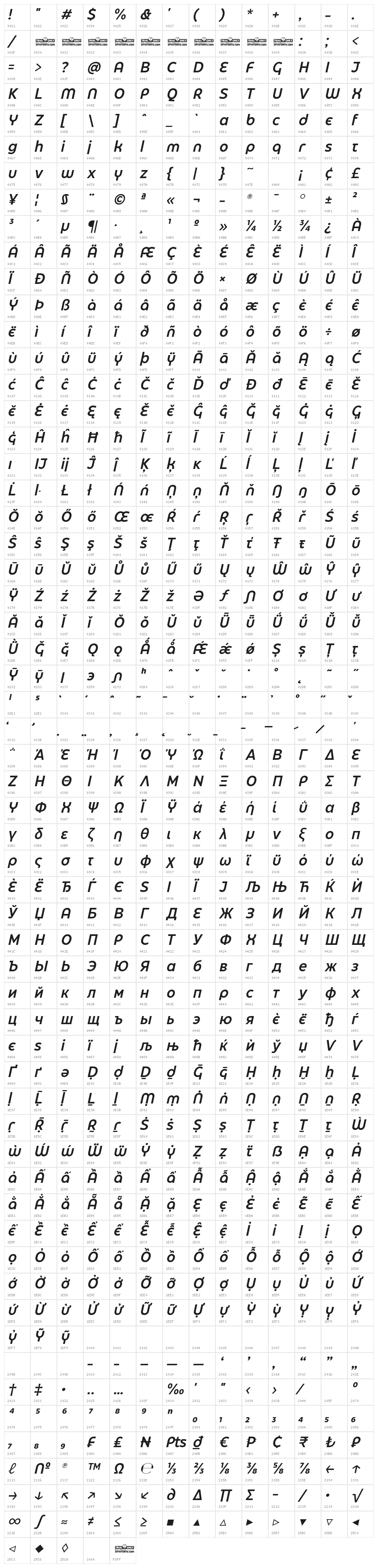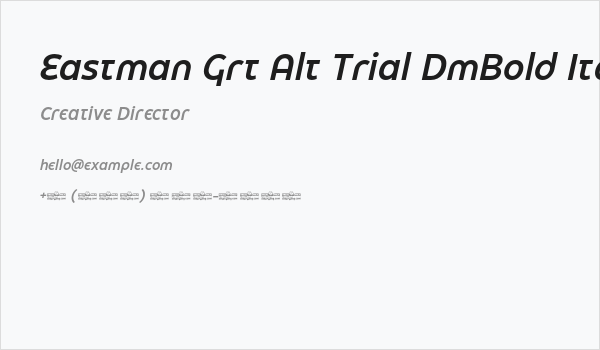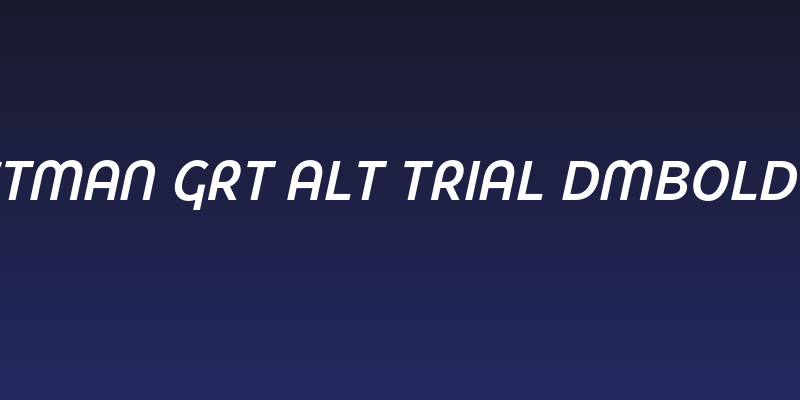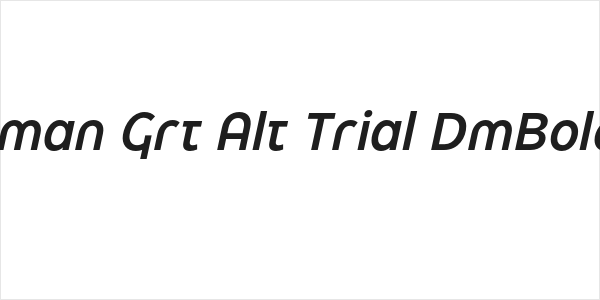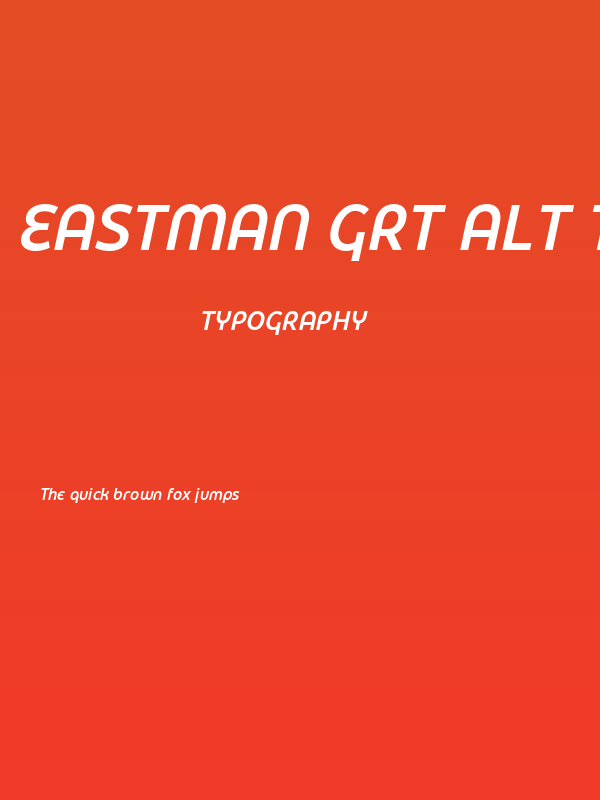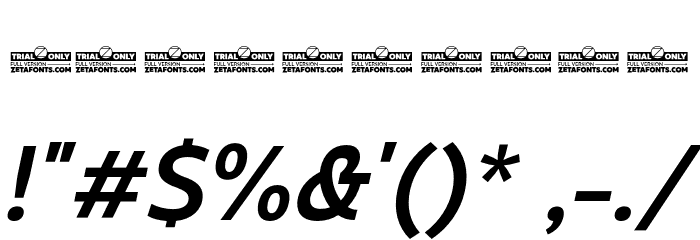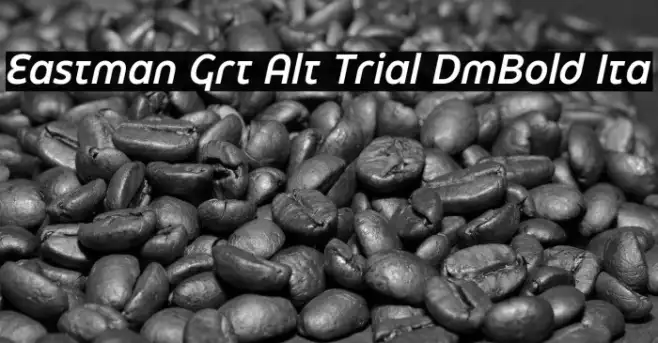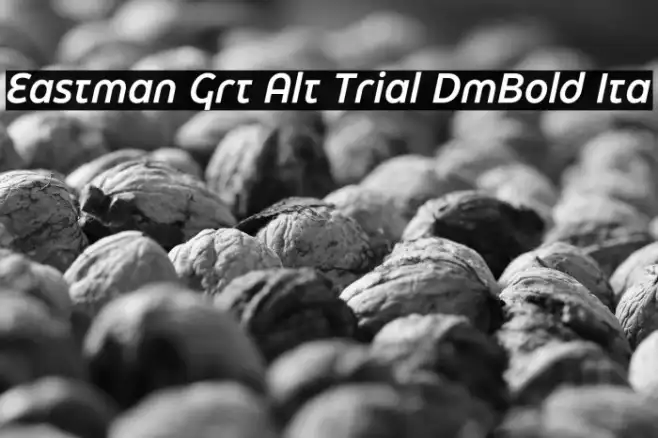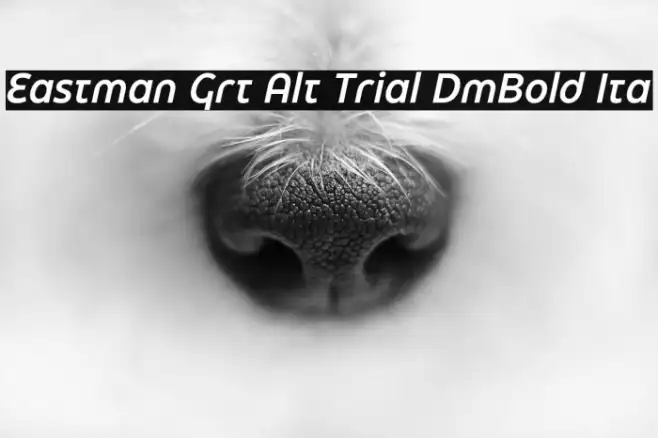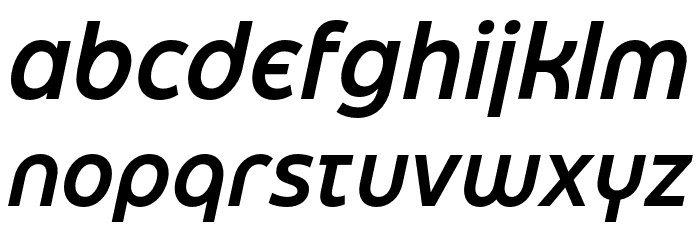
Eastman Grt Alt Trial DmBold Ita Font
Eastman Grt Alt Trial DmBold Ita Description
This font features a modern and sleek design with a slight italic slant, giving it a dynamic and forward-moving appearance. The characters are bold and well-defined, with smooth curves and a consistent stroke width that enhances readability. The uppercase and lowercase letters maintain a uniform style, while the numerals and special characters are crafted to match the overall aesthetic. The font's clean lines and contemporary look make it versatile for various design applications.
| Use Case | Headlines, Logos, Branding |
| Proposed Projects | Ideal for branding, advertising, and digital media projects where a modern and dynamic look is desired. Suitable for headlines, posters, and logo design. |